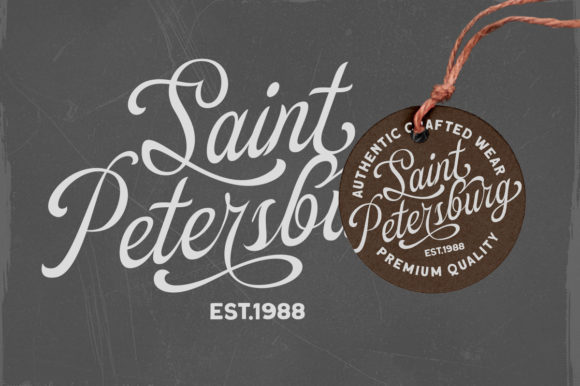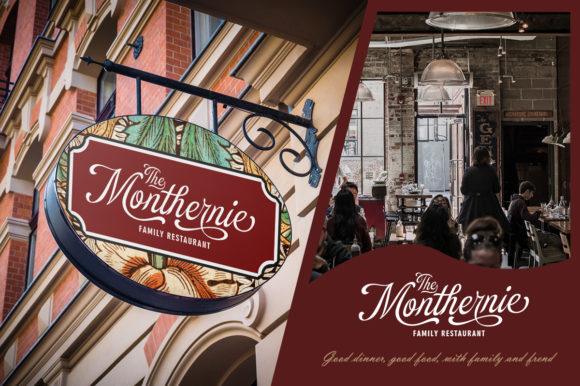
Greybridge Font
db-ku.com - Script & Handwritten -- Greybridge is a beautiful vintage styled handwritten font. It looks lovely on invitations, thank you cards, quotes, greeting cards, logos, business cards and every other design which needs a handwritten touch.